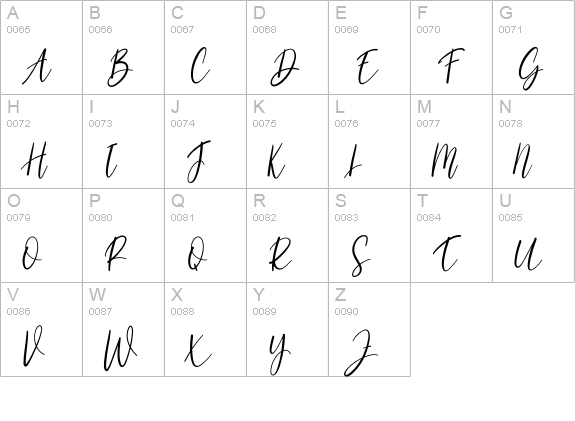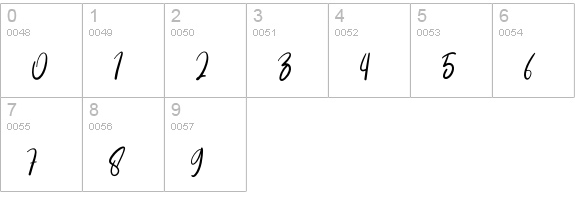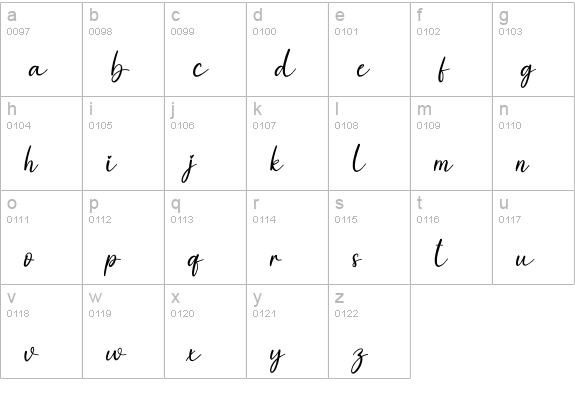
Jesika Font Details
Jesika is a free for personal use font in the Script > Handwritten category, designed by scratchones. It has been downloaded 12 times and is available for Windows, Mac and Linux.
Introducing Jesika font, a stunning and versatile typeface designed to add a touch of elegance and sophistication to your projects. With its delicate curves and clean lines, Jesika font exudes a sense of modernity and style. This eye-catching font is perfect for a wide range of design applications, from branding and packaging to invitations and social media graphics.
What sets Jesika font apart is its unique combination of classic elegance and contemporary flair, making it a truly timeless choice for any project. Whether you're creating a logo for your business or designing a wedding invitation, Jesika font will help you make a memorable impression.